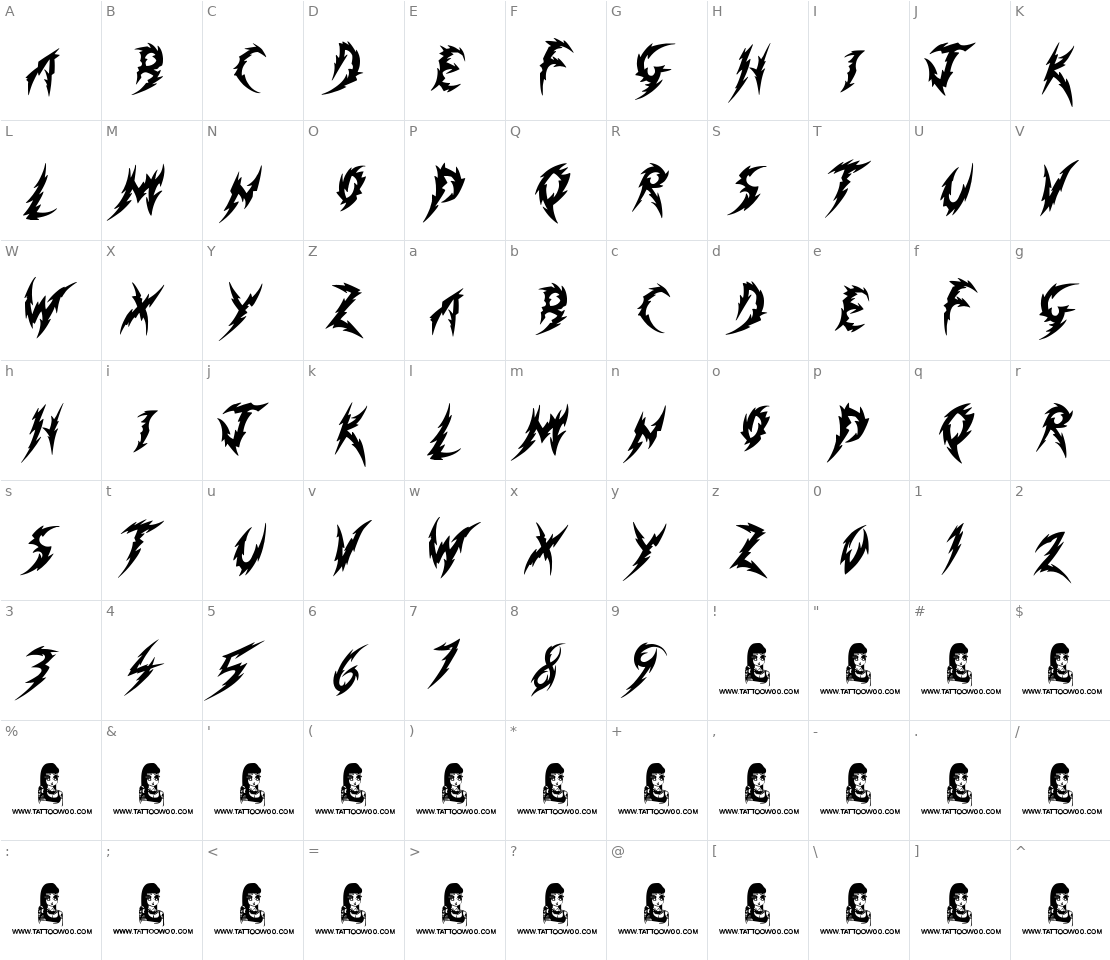
Minimum Loss
Minimum Loss is a jagged, forward-leaning display face from Jonathan S. Harris where every letterform bristles with sharp, spiky extensions that feel genuinely menacing. The aggressive italic slant and extreme angularity put it squarely in metal and horror territory, built for band logos, event flyers, and dark-themed headlines where restraint isn't the goal. It's loud, hostile, and completely unapologetic about it.